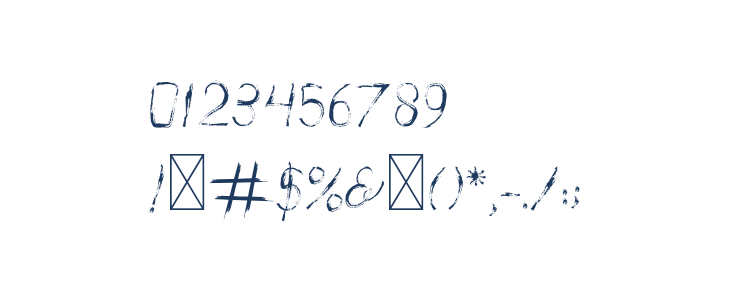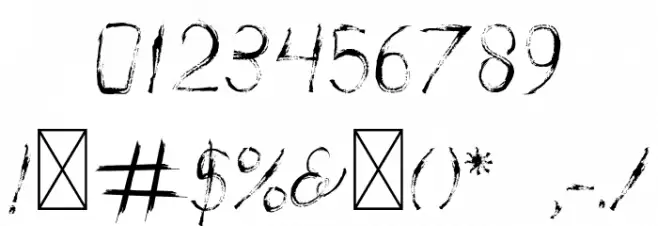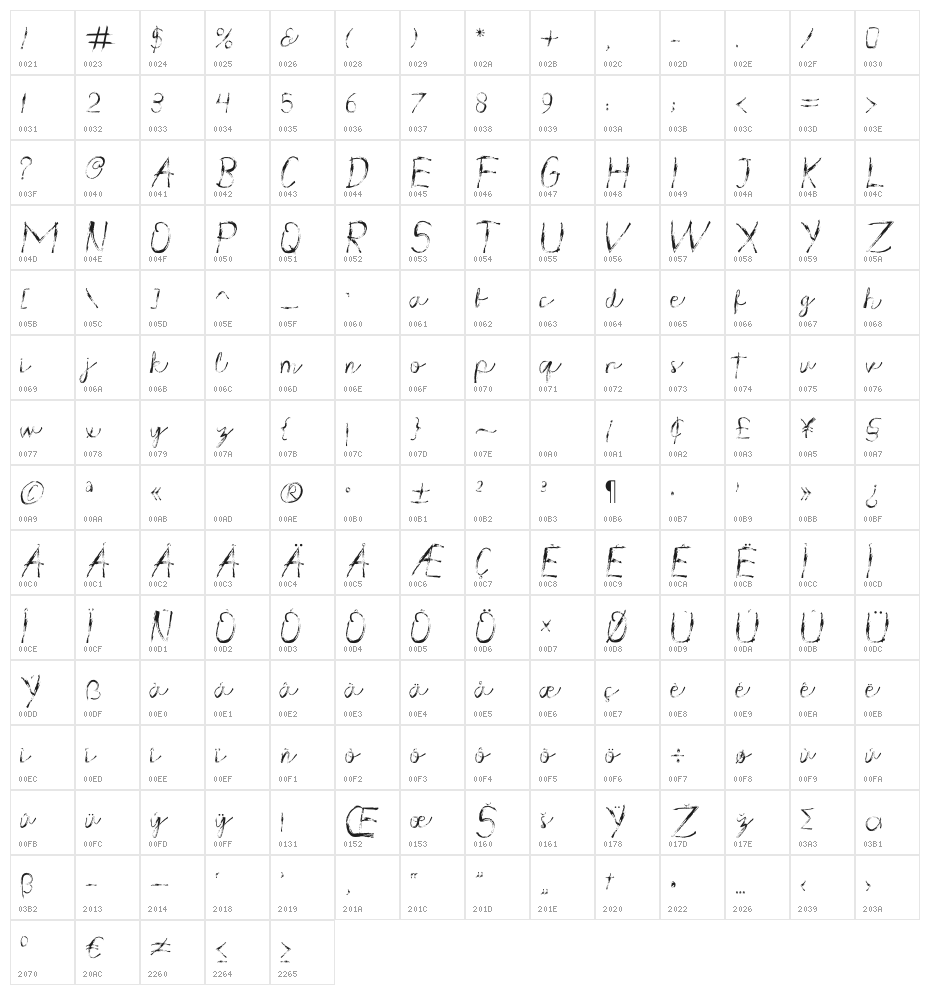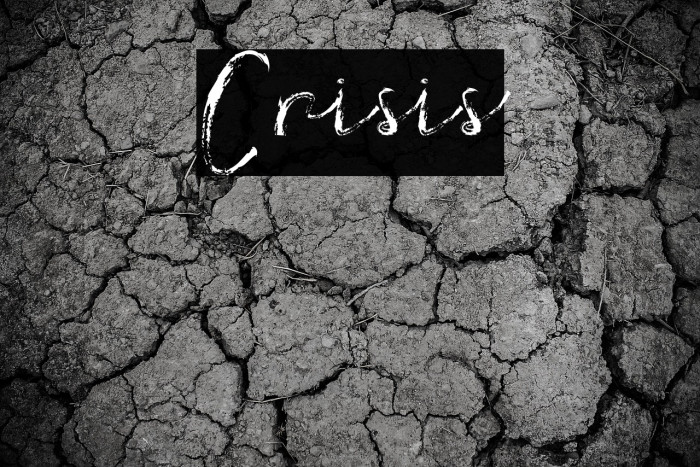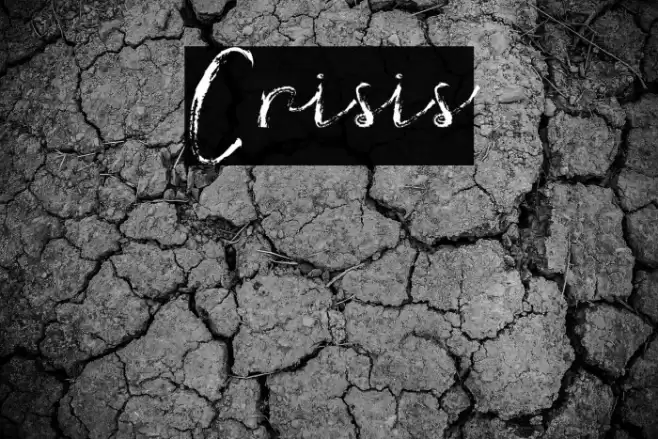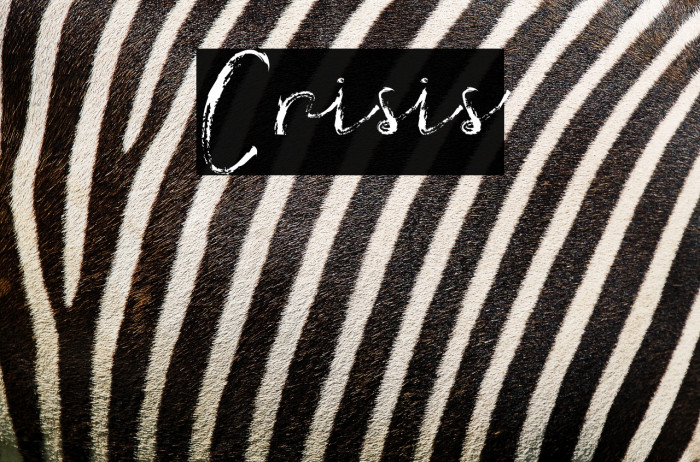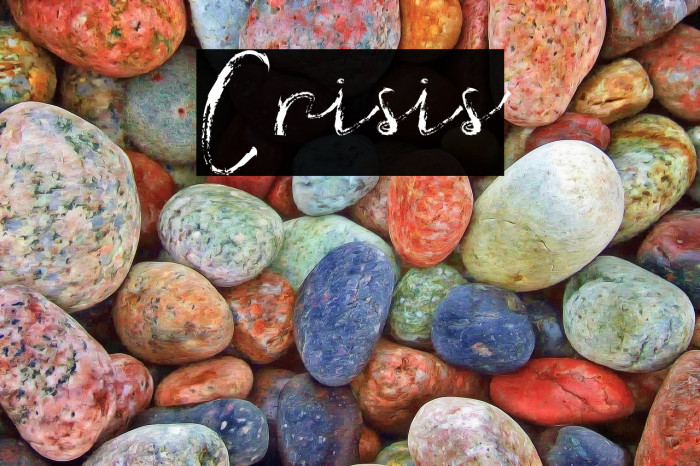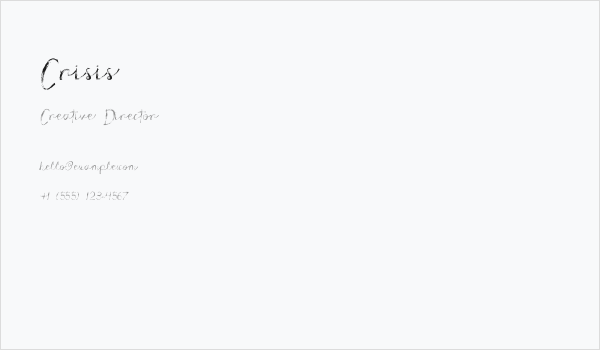
Crisis Font
Crisis Description
This font features a distressed, textured appearance that mimics the look of hand-drawn brush strokes. The letters are slightly slanted, giving a dynamic and energetic feel. The uppercase and lowercase characters maintain a consistent style, with irregular edges and varying line thicknesses that add to the handcrafted aesthetic. Numbers and special characters follow the same design, ensuring a cohesive look across all elements. The font's unique style makes it stand out, ideal for projects that require a bold and artistic touch.
Proposed ProjectsIdeal for artistic projects, posters, album covers, and branding that require a bold, handcrafted look.